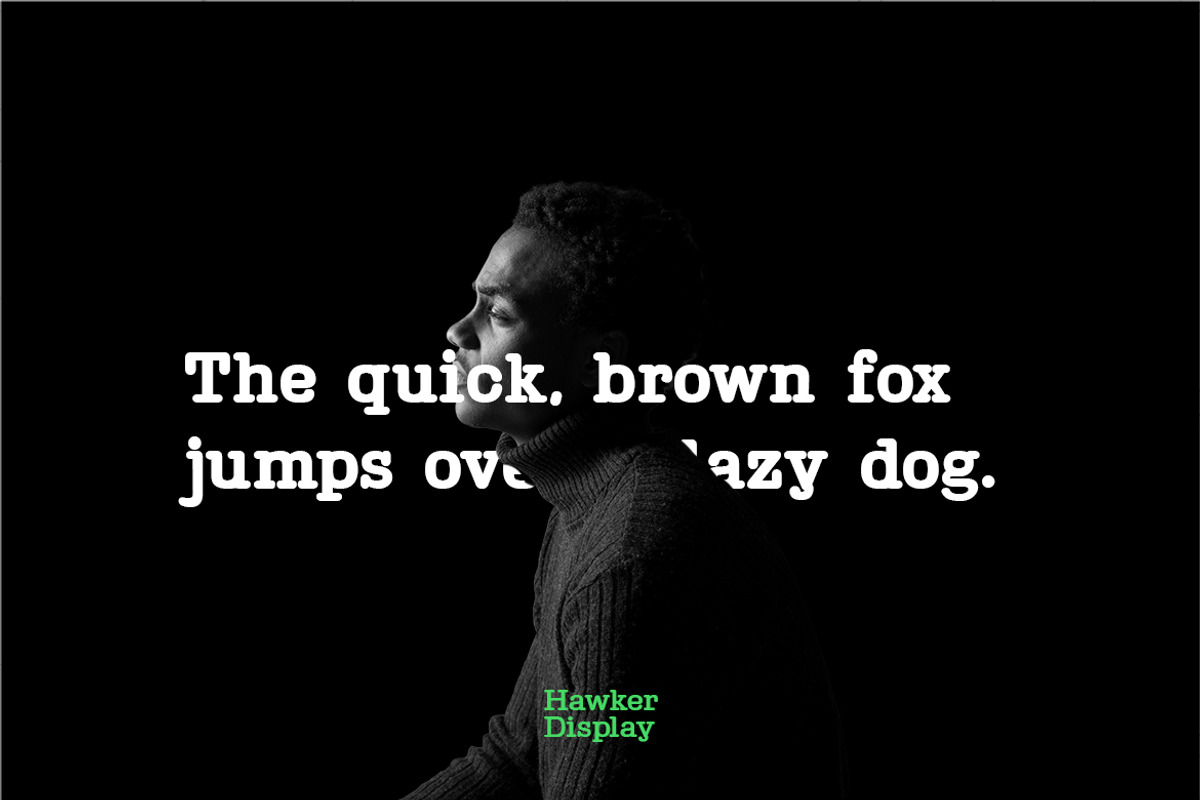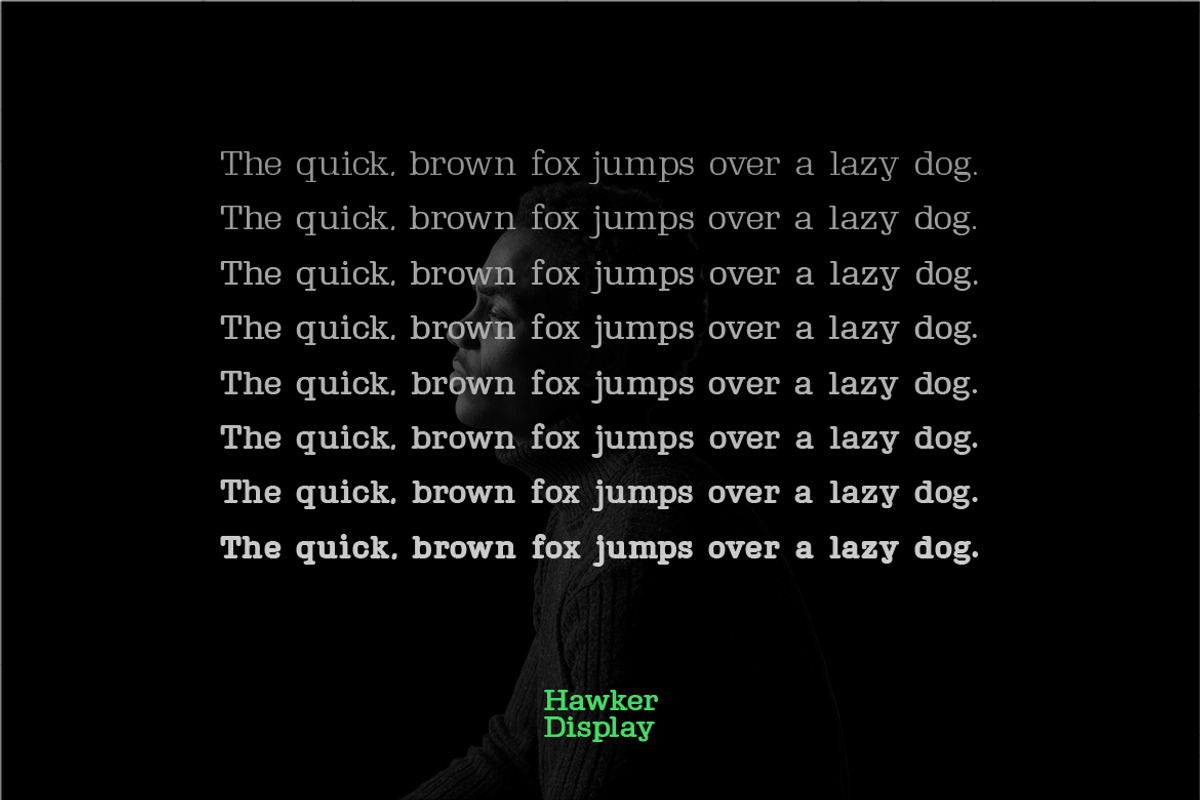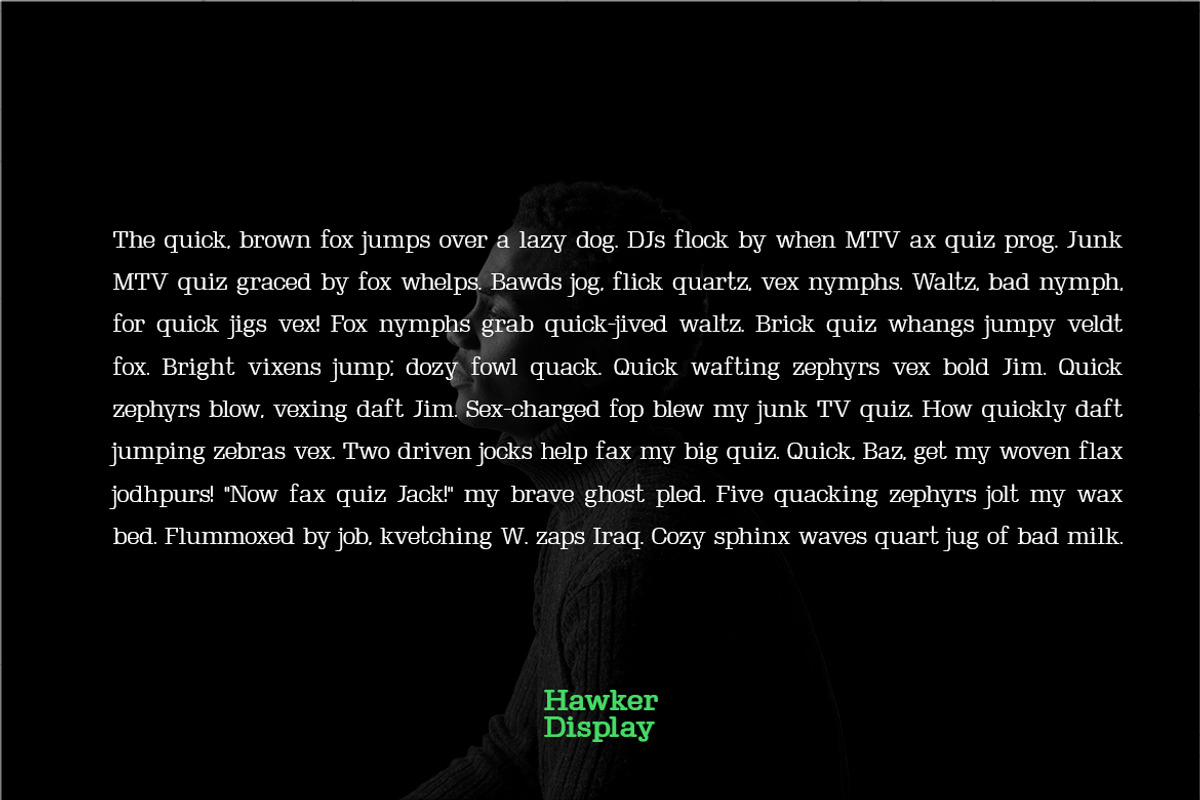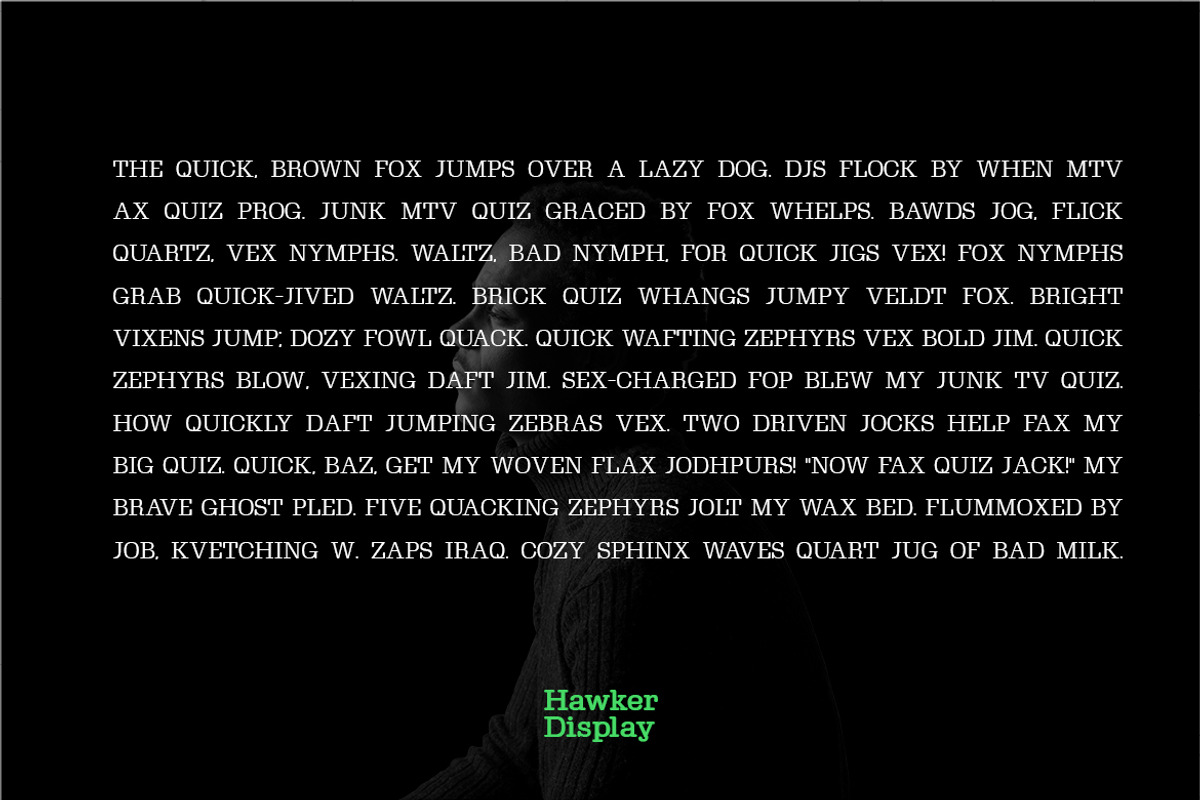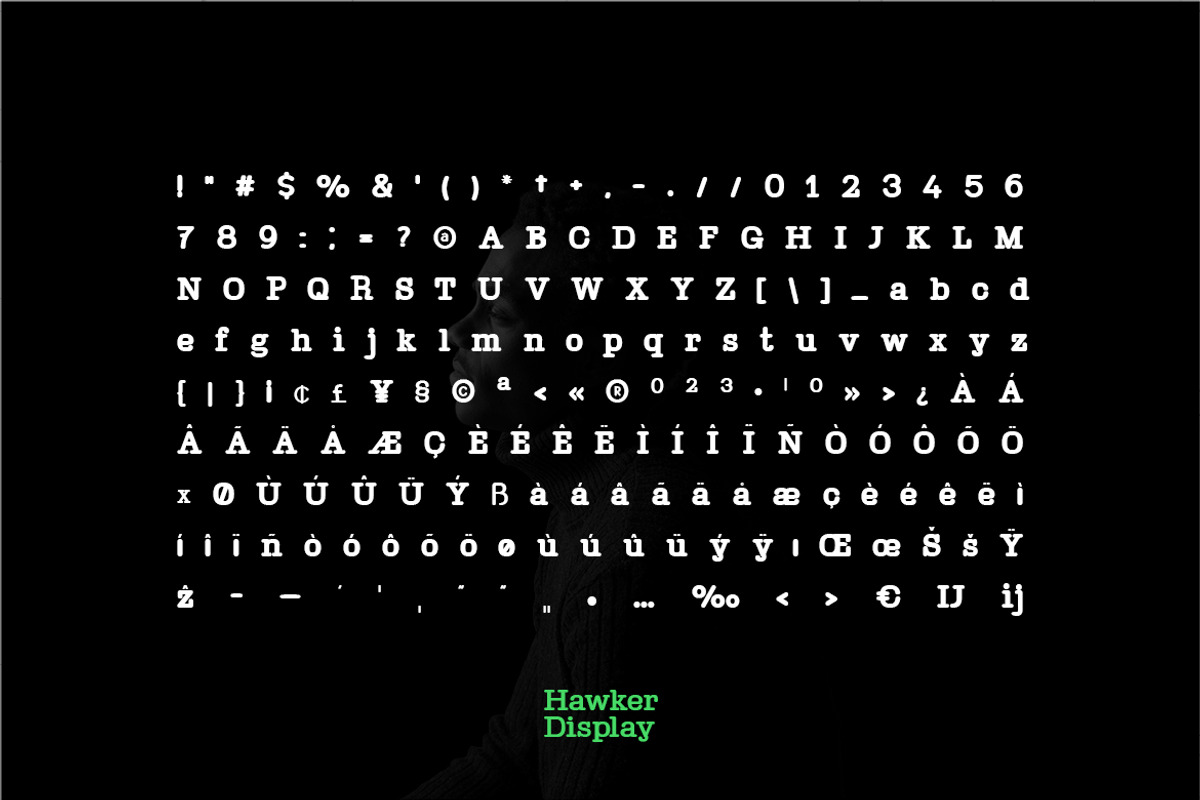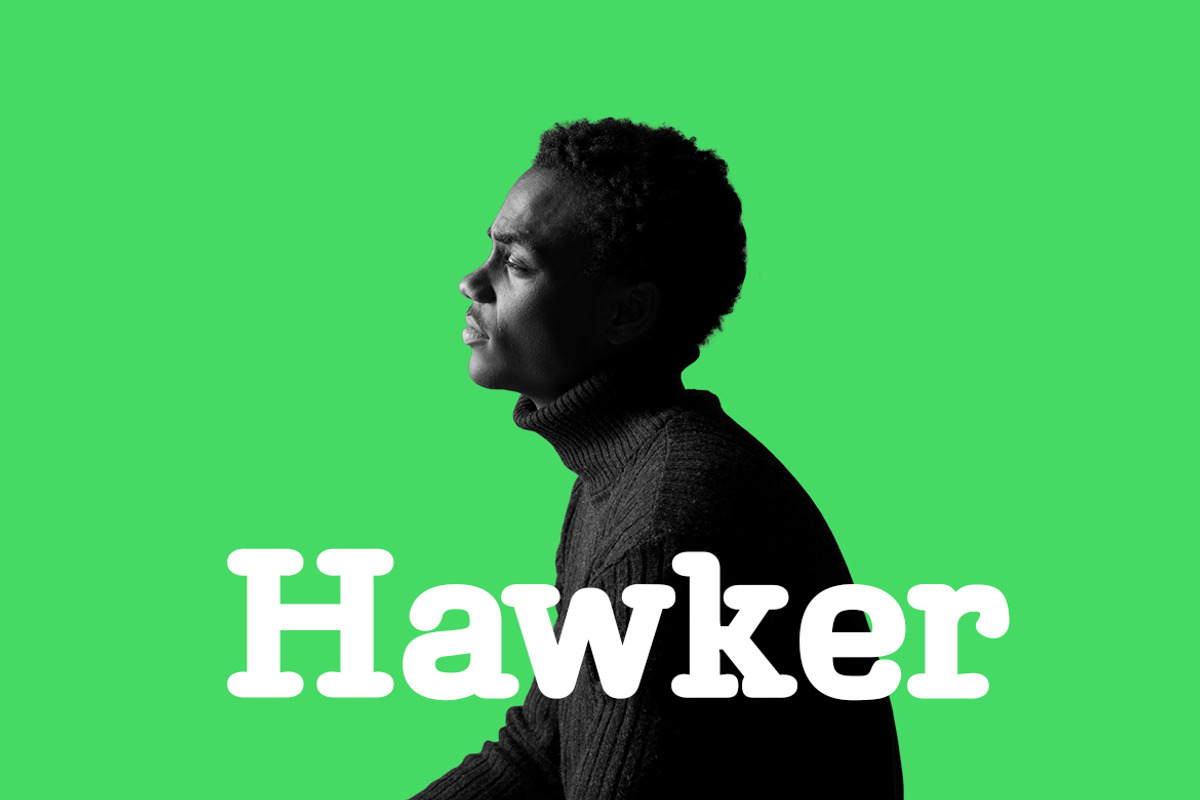
Hawker Serif - Modern Typeface + Web
Hawker Serif Typeface
Hawker Serif is a modern Serif typeface From Webhance, very much suitable for Film Posters, headlines, Block letter, Subheading, Logo Designs, Big Banners. Classic & Decorative Typography Web Designs.
Font Designed and Crafted by Webhance Studio.